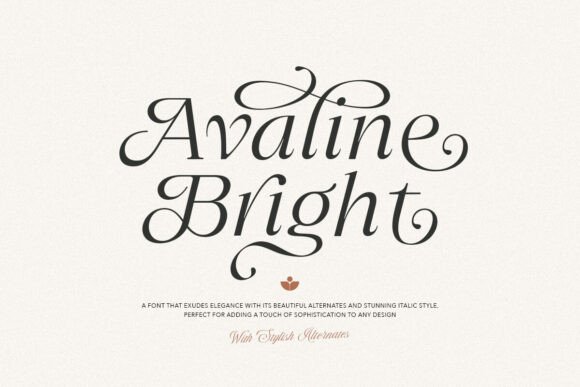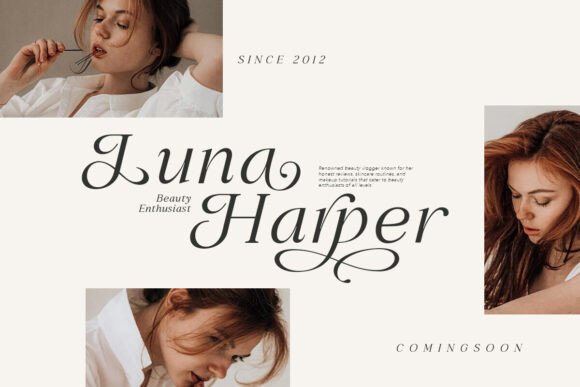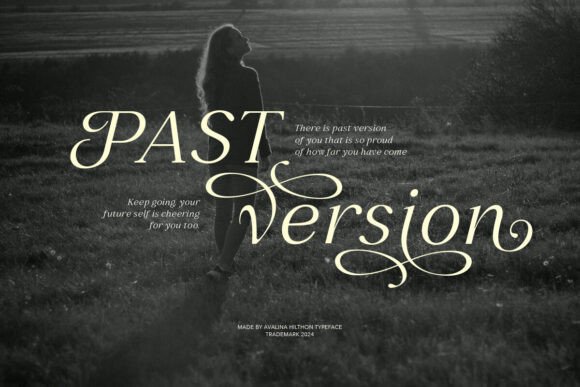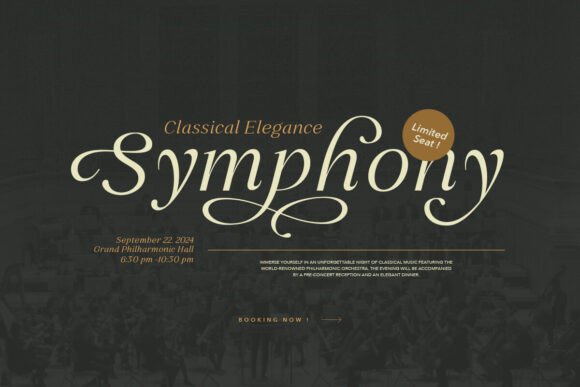
Avaline Bright Font
About the Avaline Bright Font
Step up your design game with Avaline Bright Font, a font that exudes confidence and style. Avaline Bright is a luxury and modern italic font based from serif. With stylish alternates that you can use to make your design or logo looks elegant and sophisticated. You can use this font for any purpose, such as a wedding invitations, logotype, or quote post. This font also support multilingual.
Avaline Bright’s elegant italic style excels in headlines, logos, and short, impactful text segments such as quotes or taglines. Its luxurious feel makes it ideal for branding projects targeting high-end products or services, particularly in the fashion, beauty, or wedding industries. Avoid using it for body text or lengthy paragraphs; its italic form hinders readability in extended passages.
The font’s inherent sophistication is best complemented by pairings with clean sans-serif fonts like Lato or Open Sans for a contemporary contrast, or a classic serif such as Garamond or Playfair Display for a more traditional feel. A touch of playful contrast could be achieved by pairing it with a slightly rounded geometric sans-serif.
Avaline Bright projects a sophisticated and modern personality, best suited for brands aiming for a refined and upscale image. Its italic form conveys a sense of movement and grace, making it unsuitable for projects requiring strong legibility or a highly minimalist aesthetic.
Avaline Bright Font Usage Examples
Avaline Bright Font Example